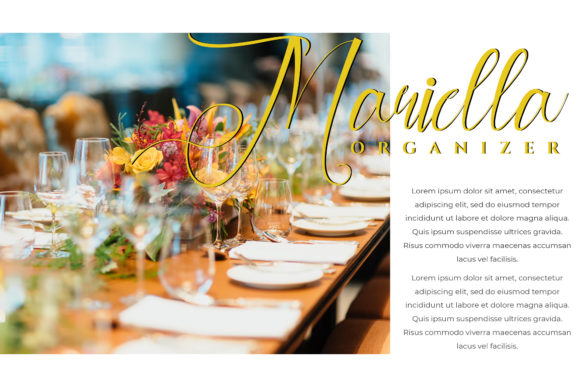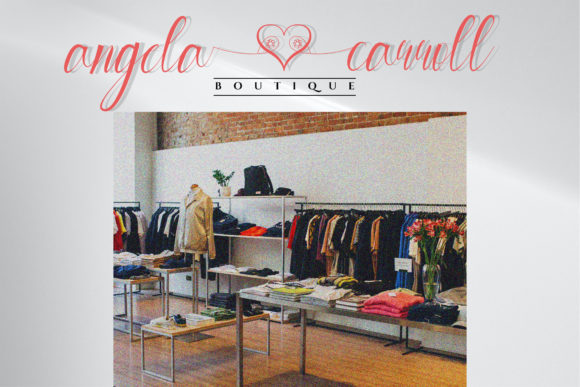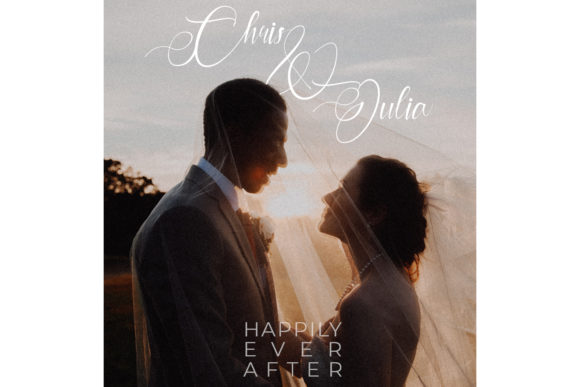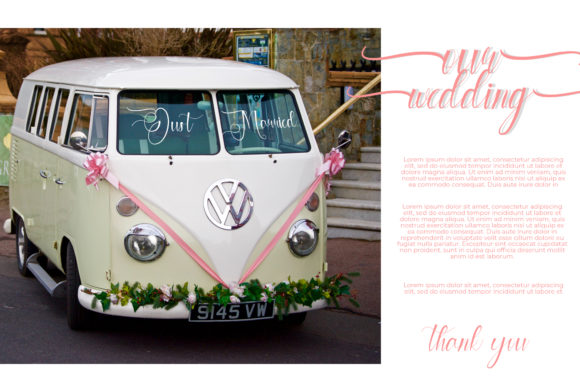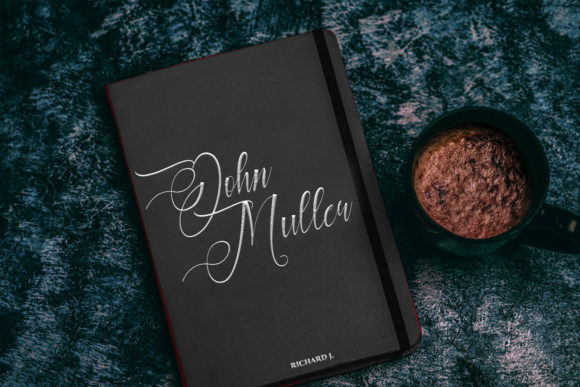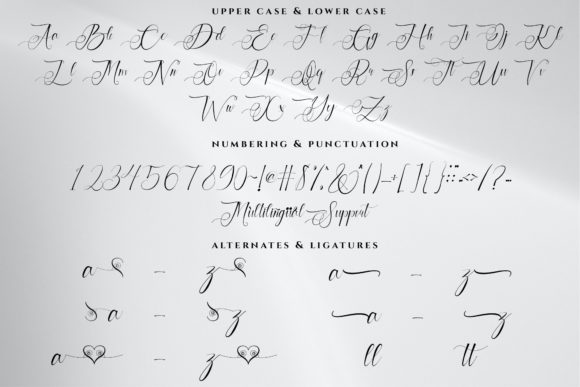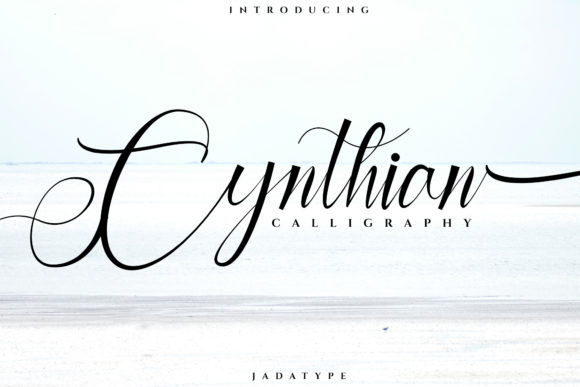
Cynthian Font: Elevate Your Designs with Elegance and Sophistication
In the world of typography, a well-chosen font can make all the difference in elevating your design to new heights. For designers and crafters seeking a touch of elegance and sophistication, the Cynthian font is an exceptional choice. This incredibly elegant handwritten font is sure to capture your heart with its classy calligraphic influences, contemporary feel, and ease of use.
What Makes Cynthian Font Stand Out?
Cynthian is not just another font; it’s a statement piece that can transform your projects with its refined and luxurious aesthetic. Here are a few key features that make Cynthian a standout addition to your typographic arsenal:
- Elegant Handwritten Style: Cynthian boasts a beautiful, handwritten appearance that exudes elegance and sophistication. Its fluid strokes and graceful curves make it perfect for designs that require a personal touch.
- PUA Encoded for Easy Access: One of the most significant advantages of Cynthian is that it is PUA (Private Use Area) encoded. This means you can easily access all the glyphs and swashes, allowing for greater flexibility and creativity in your designs.
- Contemporary yet Classic: While Cynthian maintains strong calligraphic influences, it also feels contemporary and fresh. This balance makes it versatile enough to be used in a wide range of projects, from traditional stationery to modern digital media.
The versatility of Cynthian makes it suitable for numerous applications. Whether you’re working on:
- Stationery and Invitations: Add a touch of class to your wedding invitations, greeting cards, and personal stationery.
- Branding and Packaging: Elevate your brand with a sophisticated and memorable logo or packaging design.
- Digital Media: Use Cynthian in your blog headers, social media graphics, or website to give your online presence a luxurious feel.
- Crafting and DIY Projects: Perfect for crafters, Cynthian can be used in scrapbooking, journaling, and other DIY projects to add an elegant touch.
Why Choose Cynthian Font?
With so many fonts available, why choose Cynthian? Here are a few compelling reasons:
- Unique and Memorable: Cynthian’s distinctive style ensures that your designs will stand out and be remembered.
- Time-Saving: Being PUA encoded, you can quickly access a wide range of glyphs and swashes without the hassle, saving you time and effort.
- High-Quality Design: Crafted with attention to detail, Cynthian provides a high-quality aesthetic that reflects professionalism and style.
Tips for Using Cynthian Font Effectively
To get the most out of Cynthian, consider the following tips:
- Pair with Complementary Fonts: Combine Cynthian with simpler fonts to create contrast and hierarchy in your designs.
- Experiment with Swashes: Take advantage of the swashes and glyphs to add flair and personality to your text.
- Consider Your Audience: Ensure that the elegance of Cynthian aligns with the tone and style of your project and appeals to your target audience.
Cynthian font is a remarkable addition to any designer’s toolkit. Its elegant handwritten style, PUA encoding for easy access to glyphs and swashes, and contemporary yet classic feel make it an excellent choice for a wide range of projects. Whether you’re a professional designer or a crafting enthusiast, Cynthian can help you bring your projects to the highest levels of sophistication and elegance. So, fall in love with Cynthian and discover the transformative power it can bring to your designs.